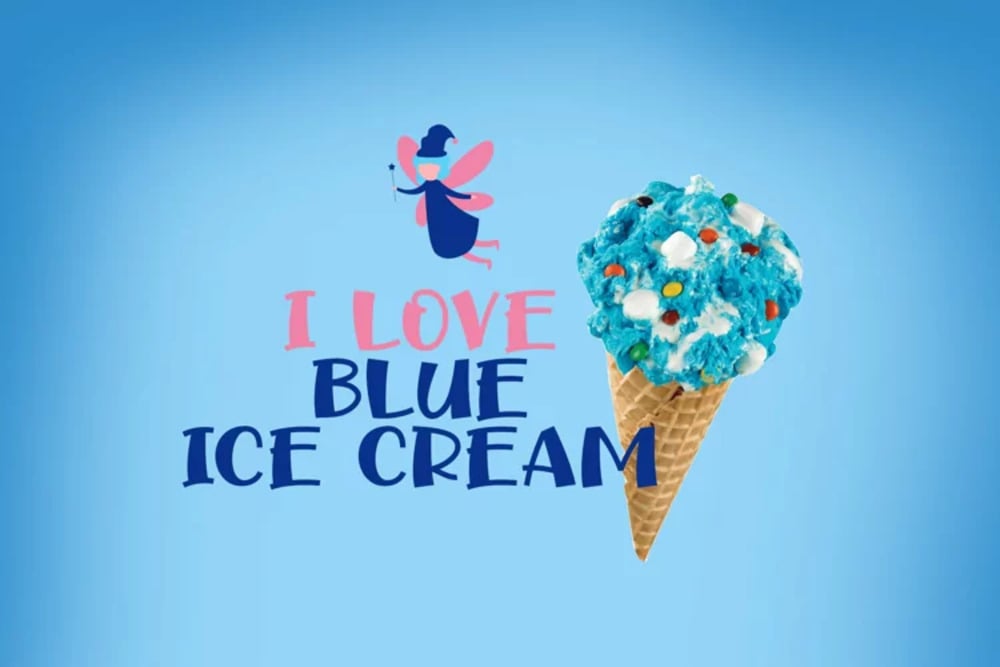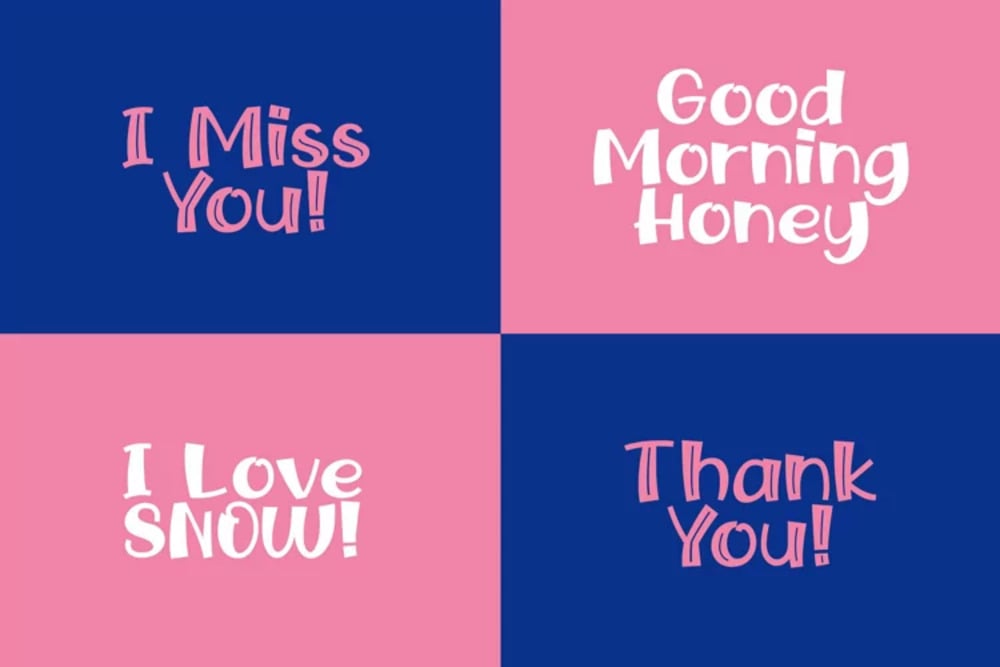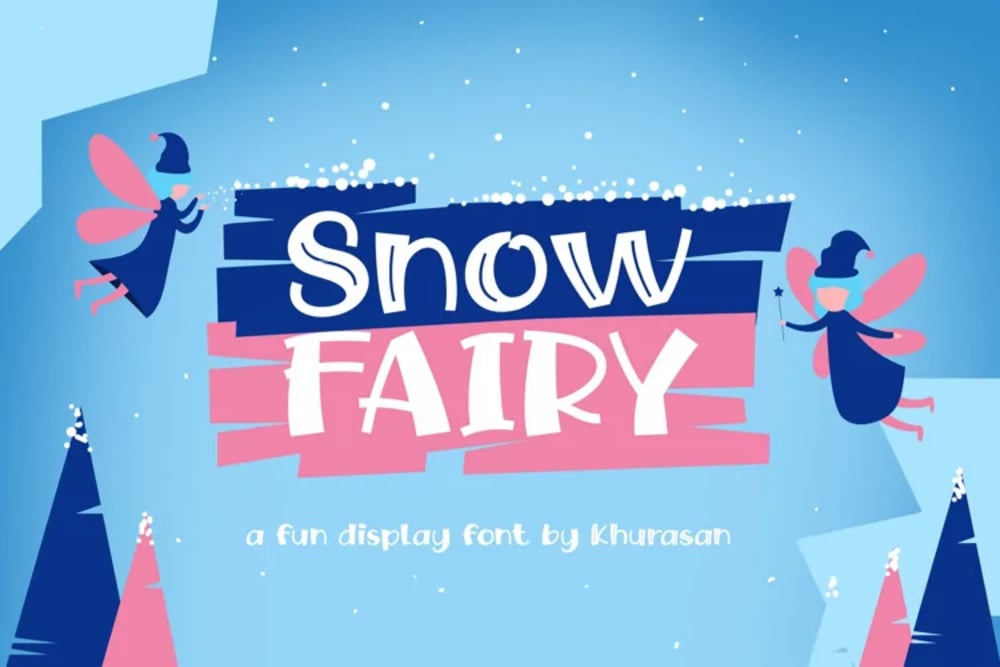
Snow Fairy Font
Snow Fairy is a whimsical and delicate script font, reminiscent of winter magic and fairy tales. Its flowing, elegant letterforms evoke a sense of grace and enchantment. Perfect for adding a touch of sparkle and charm to invitations, greeting cards, or branding, Snow Fairy is ideal for projects seeking a touch of fantasy or holiday spirit. It brings a light, airy, and ethereal quality to any design.